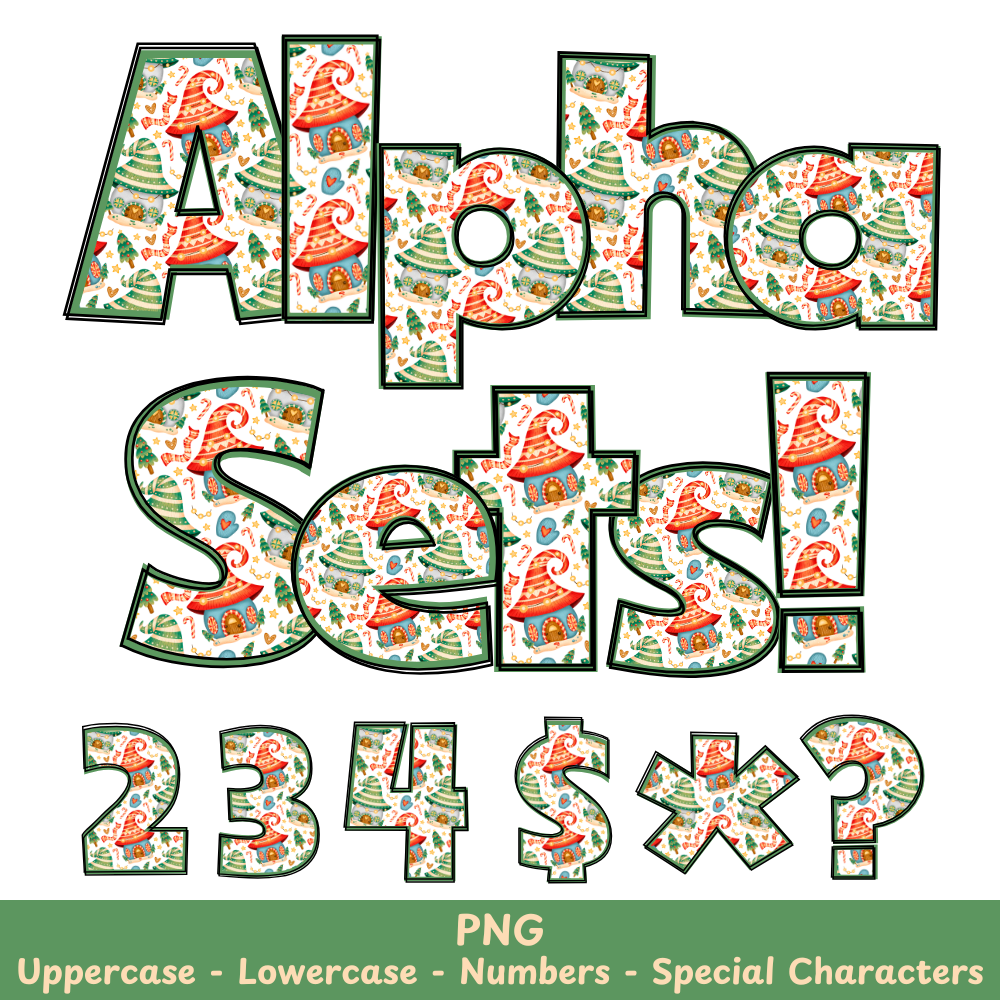
Christmas Gnome House PNG Font
Christmas Gnome House Alpha Set PNG Font Pack
Introducing our Christmas Gnome House PNG Font, perfect for crafting and sublimation projects. With its charming and festive design, this font is sure to add a touch of holiday spirit to any project. Use it with ease in all your crafts and sublimation designs.